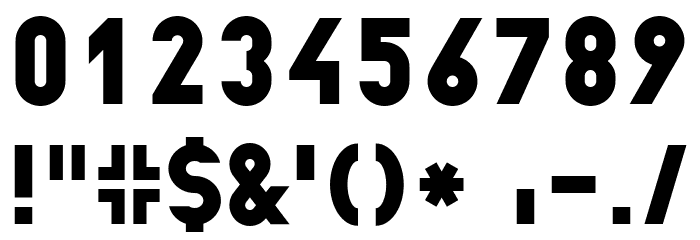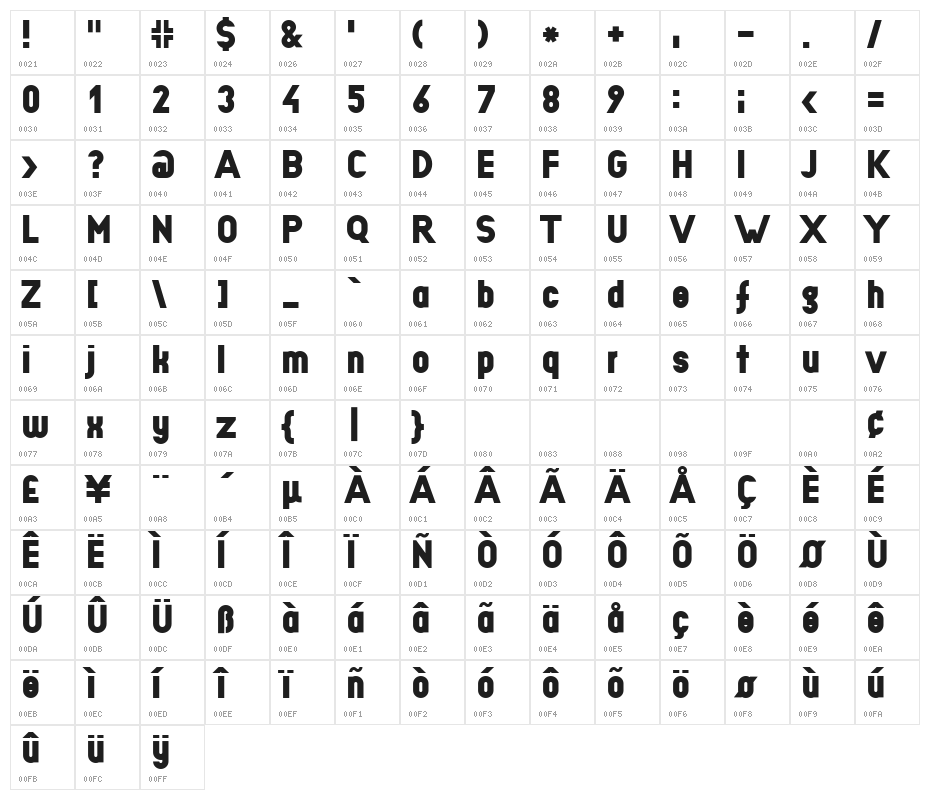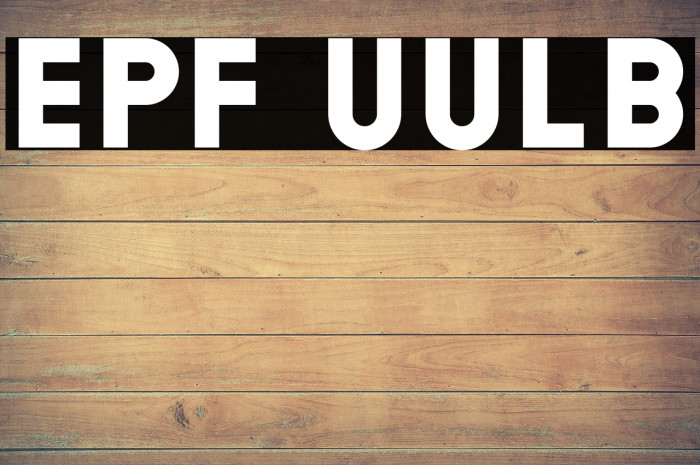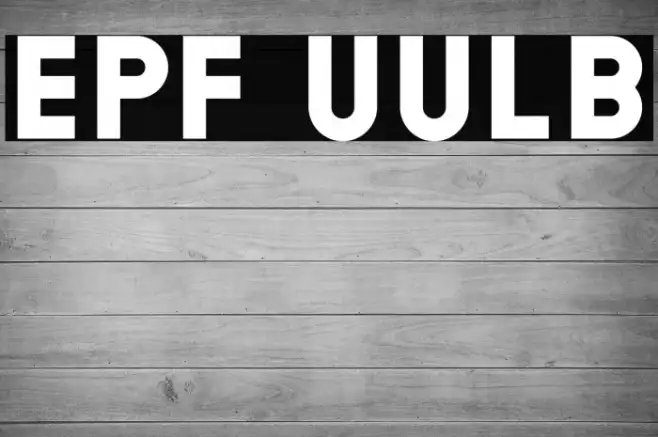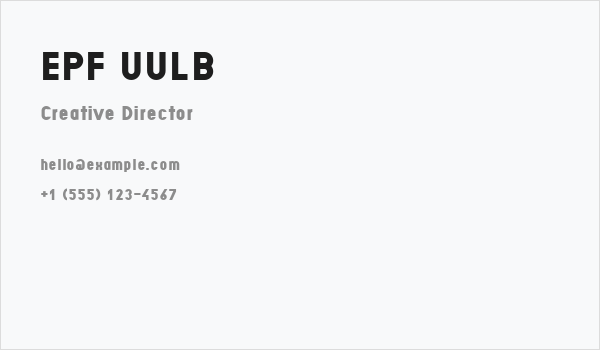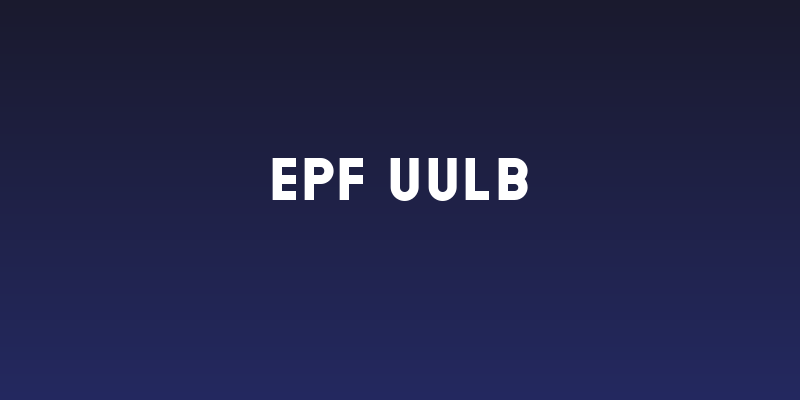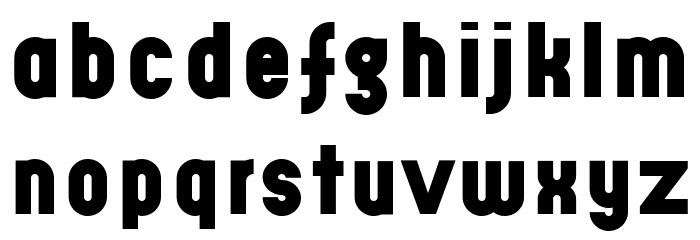
EPF UULB Font
EPF UULB Description
This font features bold, geometric letterforms with a strong presence. The uppercase letters are uniform in height, with a modern, sans-serif style that emphasizes clarity and impact. The lowercase letters maintain the same boldness, with some unique characteristics such as the distinctive 'g' and 't'. The numerals are equally bold, ensuring readability and consistency across different uses. Special characters are designed to match the overall bold aesthetic, making them suitable for various applications. The font's design is straightforward yet powerful, ideal for making statements.